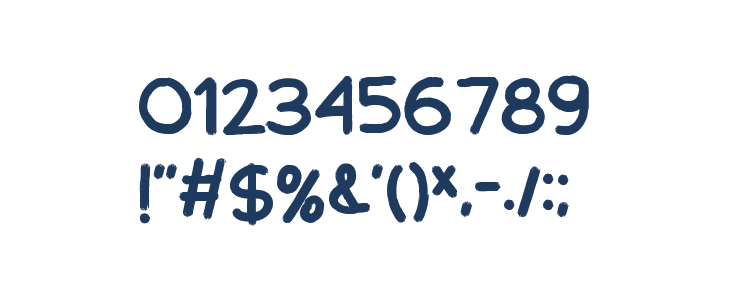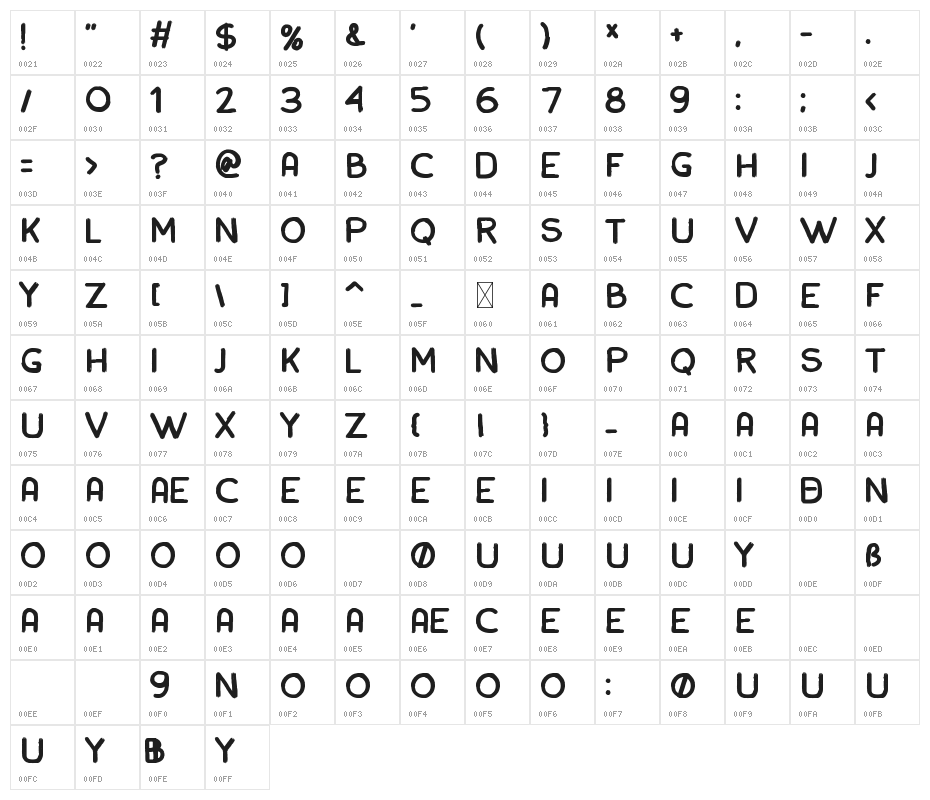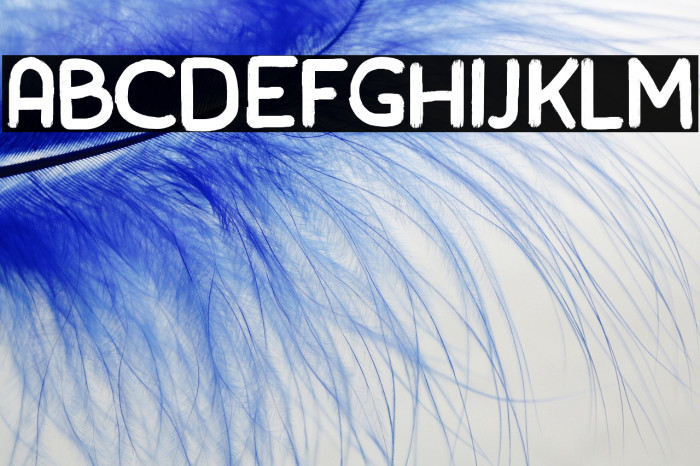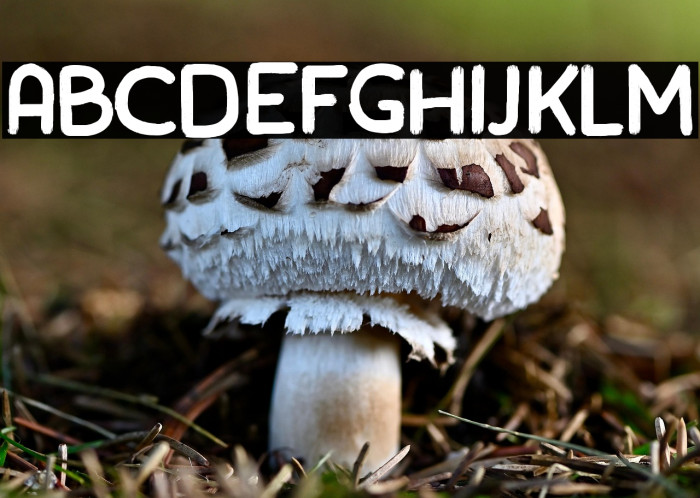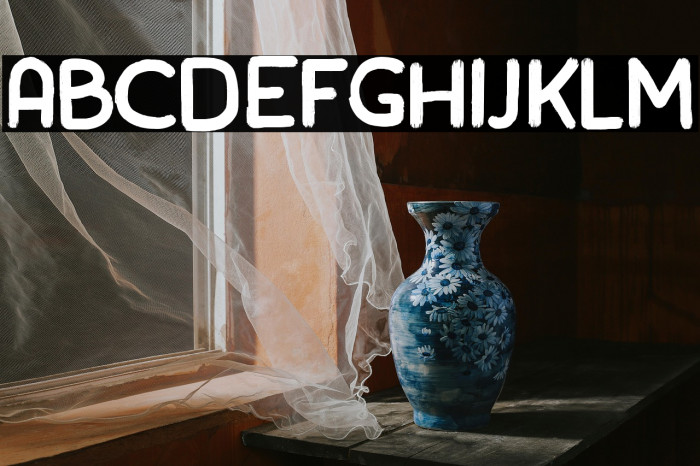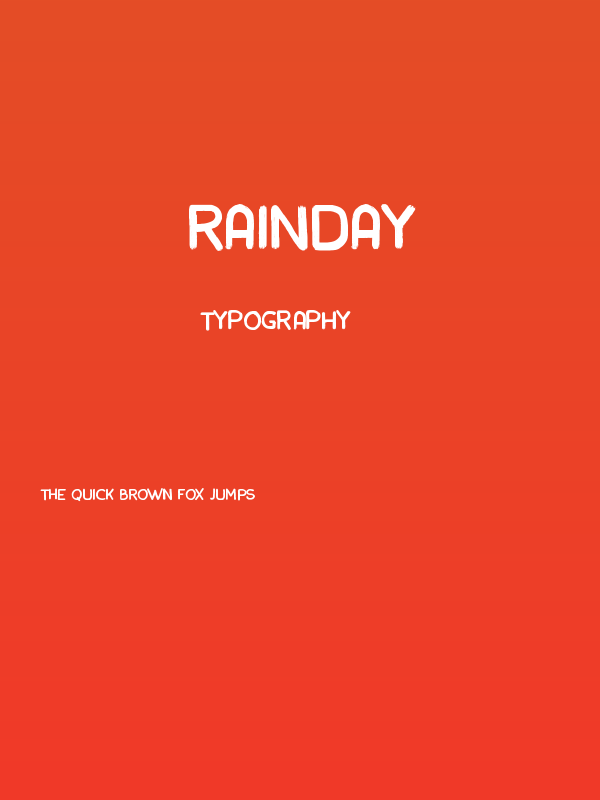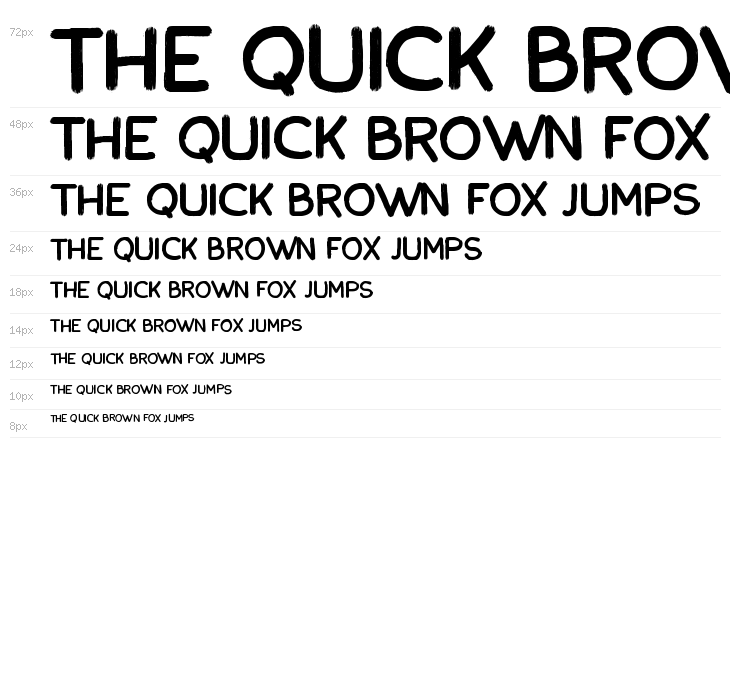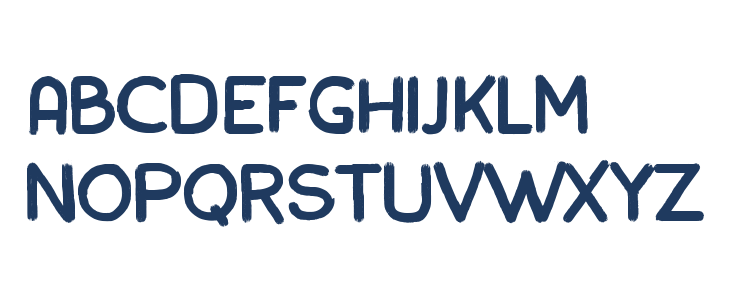
rainday Font
rainday Description
This font features a bold, hand-drawn style with a playful and casual appearance. The characters are thick and rounded, giving them a friendly and approachable feel. The strokes are consistent in width, contributing to a cohesive look across all letters and numbers. The font includes both uppercase and lowercase letters, as well as a full set of numerals and a variety of special characters. Its design is reminiscent of chalk or marker writing, making it suitable for informal and creative projects.
| Proposed Projects | Ideal for children's book covers, playful branding, casual invitations, and creative posters. |